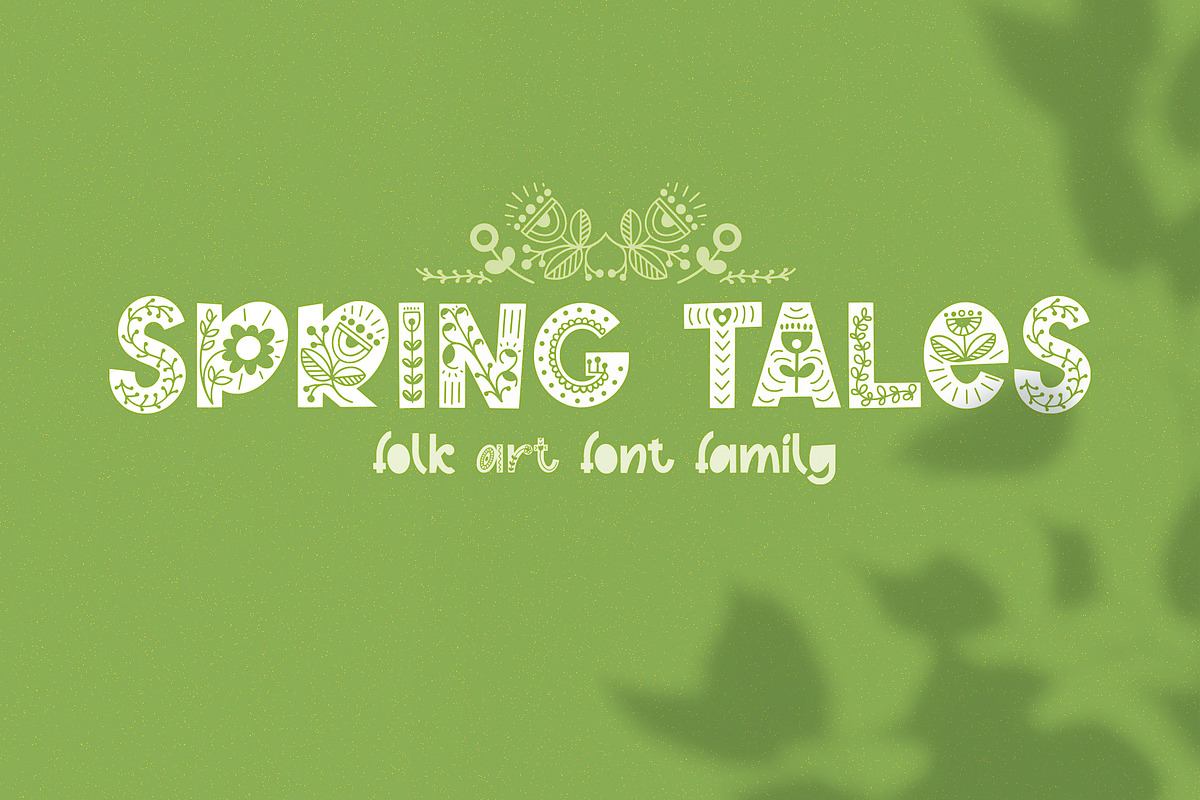
Spring Tales Font Free Download is a whimsical folk art-inspired typeface that blends handcrafted charm with a playful, storybook aesthetic. Featuring decorative serifs, floral details, and organic curves, Spring Tales is perfect for greeting cards, children’s books, seasonal branding, product packaging, and creative projects that need a warm, artisanal touch.
Designed to evoke the spirit of folklore and springtime joy, Spring Tales Font Free Download adds a magical, handcrafted feel to your typography. Its unique personality shines in both headlines and decorative text, making it ideal for folk-themed posters, rustic branding, or whimsical illustrations.
Pair it with watercolor elements, soft color palettes, or traditional patterns for a cohesive, charming look. Whether you're designing for a cozy craft brand, a seasonal event, or a fairytale project, Spring Tales brings storytelling and tradition into every letter.